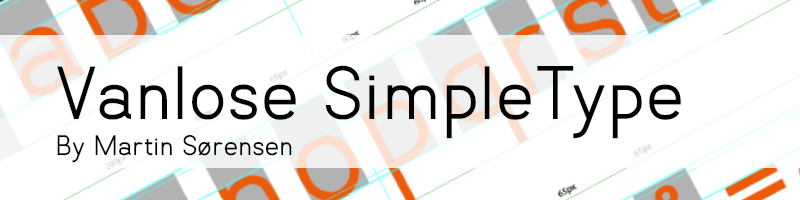
Preview and download Vanlose Simple Type Font. Created by Martin Sørensen in Basic Sans serif styles with Free for personal use license.
This is a basic font that is based on simplicity. The font is for personal use only, if you would like to use it commercially. please donate an appropriate amount depending on the use. Thank you! Martin Sørensen |